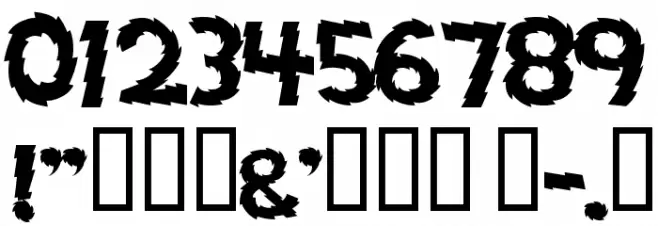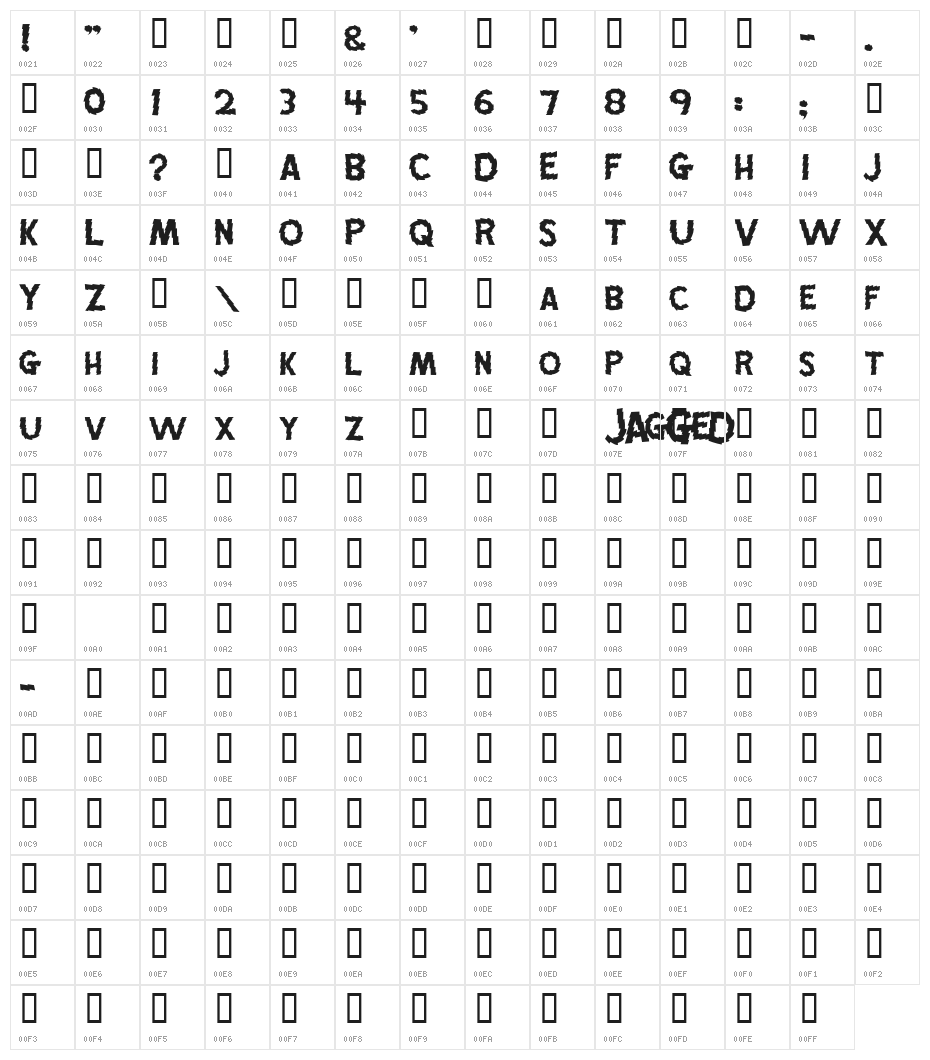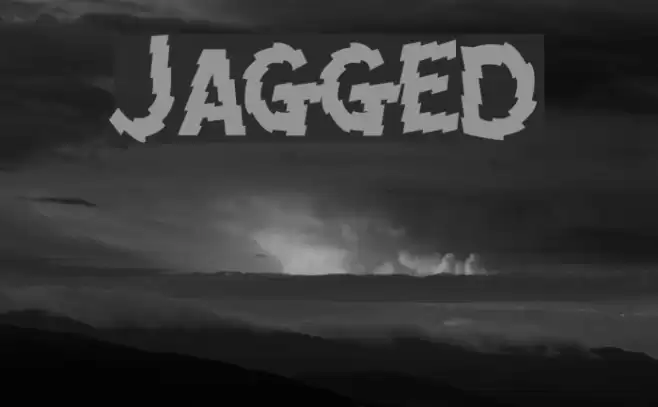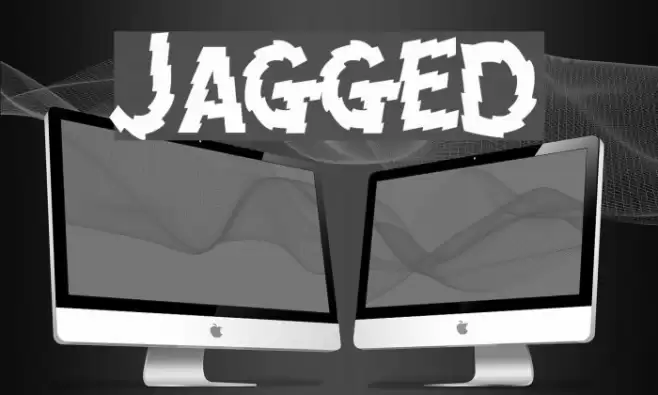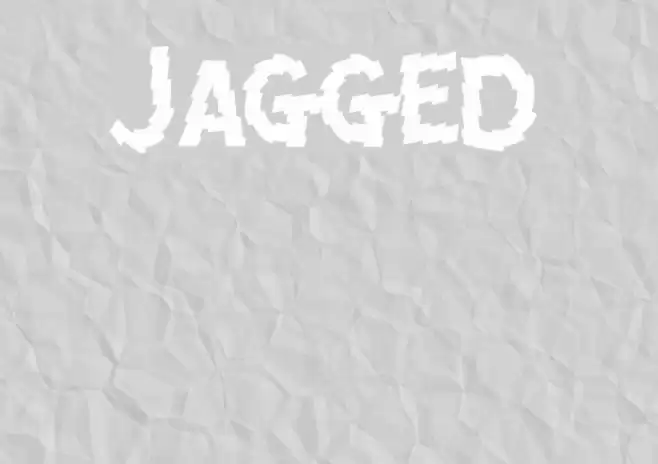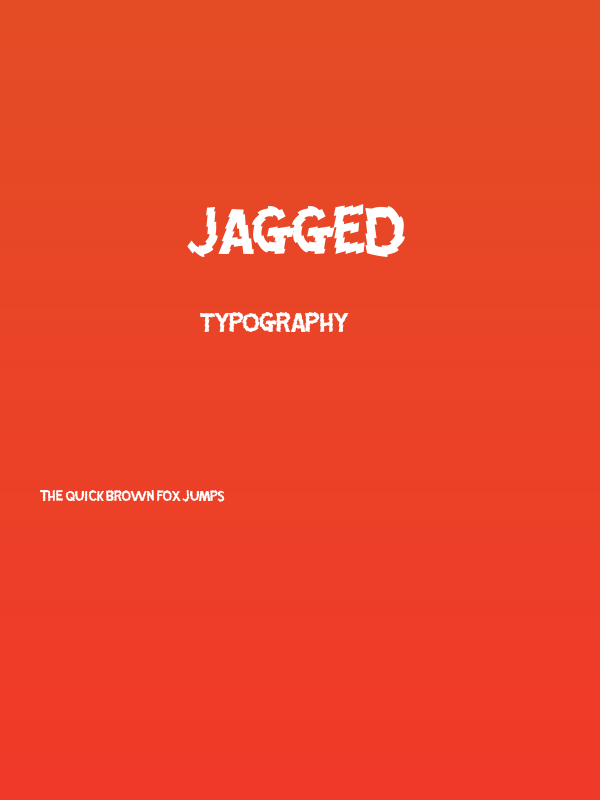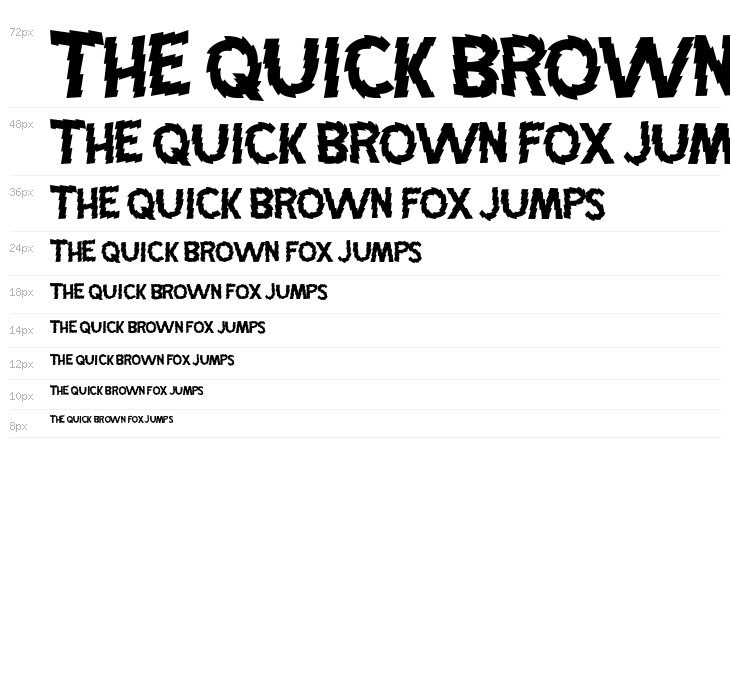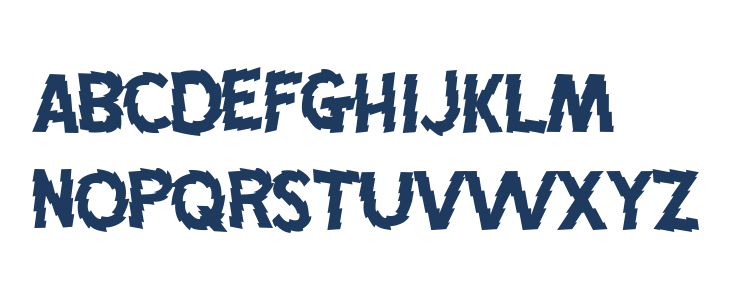
Jagged Font
Jagged Description
This font features a bold and jagged design, characterized by sharp, angular edges that give it a dynamic and aggressive appearance. The letters are heavily stylized, with irregular cuts and angles that create a sense of movement and energy. This unique style is consistent across both uppercase and lowercase letters, as well as numbers and special characters. The font's distinctiveness makes it stand out, making it ideal for attention-grabbing designs. Its boldness ensures high visibility, while the jagged edges add a touch of edginess and modern flair.
| Overall Style | Modern, Edgy |
| Proposed Projects | Ideal for posters, album covers, video game titles, and edgy branding projects. |